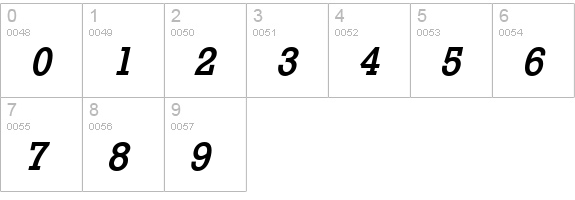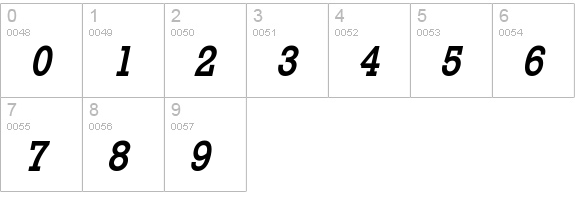
Geo 986 Bold Italic is a strong, high-contrast, italic variant in the Geo typeface family \xE2\x80\x94 well suited to headlines, attention-grabbing titles, and strong calls-to-action.
Introducing Geo 986 Bold Italic font, a striking and modern typeface that effortlessly combines boldness with elegance. This font exudes confidence and sophistication, making it perfect for a wide range of design projects. With its sleek lines and stylish curves, Geo 986 Bold Italic adds a touch of flair to any text or headline. What's even better? Geo 986 Bold Italic font is available for free download at FontsMarket.com, allowing you to easily access this premium font without breaking the bank. Whether you're designing a poster, website, or logo, Geo 986 Bold Italic font is sure to make a bold statement and elevate your work to the next level. Download it now and add a touch of modern sophistication to your designs!